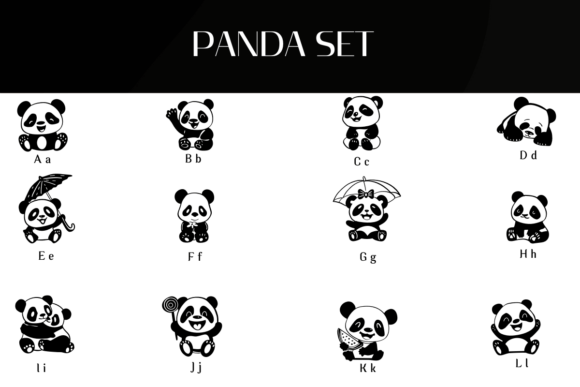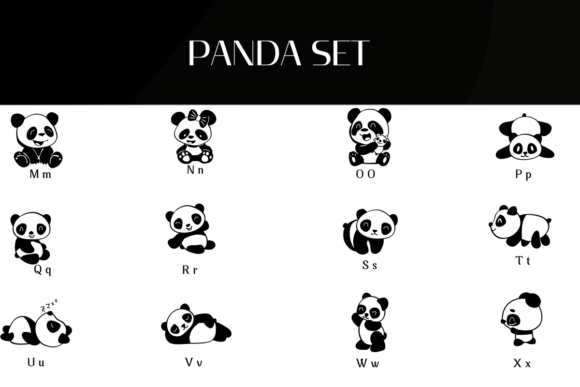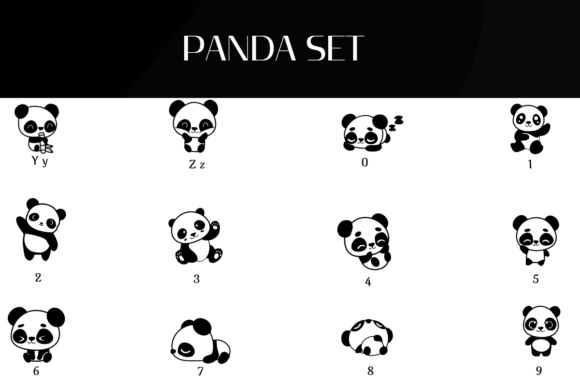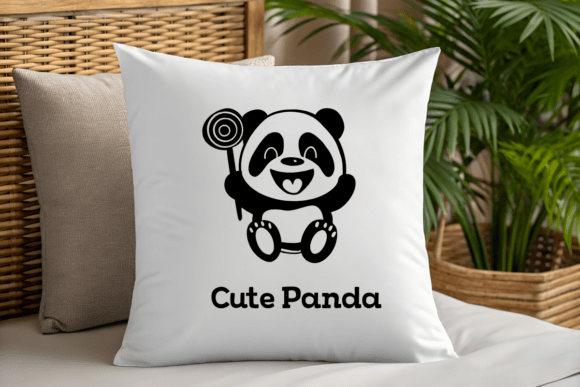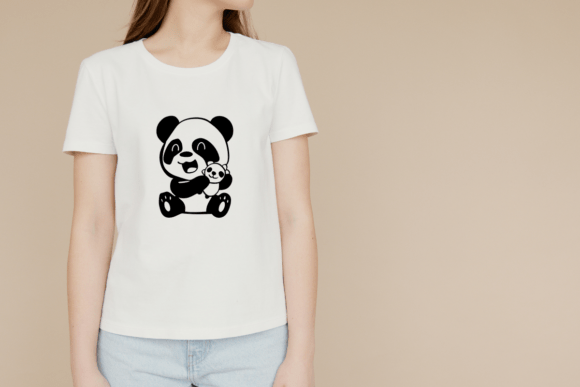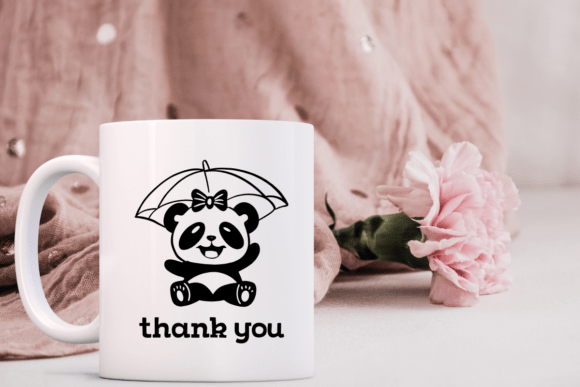
Discovering the Perfect Design Resource: Panda Set Font
Have you ever found yourself stuck in a design project, trying to convey a playful message or add a touch of whimsy to a creative endeavor, only to realize that the perfect icon or graphic is nowhere to be found? This is where the Panda Set Font comes to the rescue, providing a treasure trove of adorable and high-quality illustrations that can instantly elevate your work.
As a designer, you understand the value of having a reliable and versatile design resource at your fingertips. The Panda Set Font is precisely that – a charming collection of glyphs that can be easily resized, recolored, and manipulated to suit your needs. Whether you’re working on a print or digital project, this font is sure to bring a smile to your face and add a touch of personality to your design.
Panda Set Font
- Unique Panda-inspired design elements, adding a touch of whimsy and fun to your creative projects.
Honest Review: Panda Set Font
I recently stumbled upon the Panda Set Font and I’m excited to share my thoughts on this design resource. As a designer, I’m always on the lookout for high-quality fonts that can elevate my creative projects. The Panda Set Font definitely delivers.
What works well: ✨ The Panda Set Font is incredibly versatile, with a range of styles and weights that make it perfect for a variety of design applications. The transparent background is a nice touch, allowing for seamless integration with other design elements. Plus, it’s a free download, making it a great option for designers on a budget.
- Wide range of styles and weights
Overall, I’m impressed with the Panda Set Font. While it may have some limitations, its high quality and versatility make it a valuable addition to any designer’s toolkit. If you’re looking for a reliable and affordable font solution, the Panda Set Font is definitely worth checking out.
Panda Set Font
Panda Set Font is a high-quality design resource that offers a unique and creative way to add visual interest to your projects. With a transparent background, this font is perfect for designers looking for a versatile and easy-to-use tool.
Tips for Getting the Most Out of Panda Set Font
For the best results, use Panda Set Font in conjunction with other high-quality design resources to create a cohesive and visually appealing design. Experiment with different font sizes, colors, and combinations to find the perfect look for your project.
Panda Set Font is perfect for designers working on creative projects, such as logos, brochures, and social media graphics. Its transparent background and high-quality design make it a great choice for designers looking for a versatile and easy-to-use font.